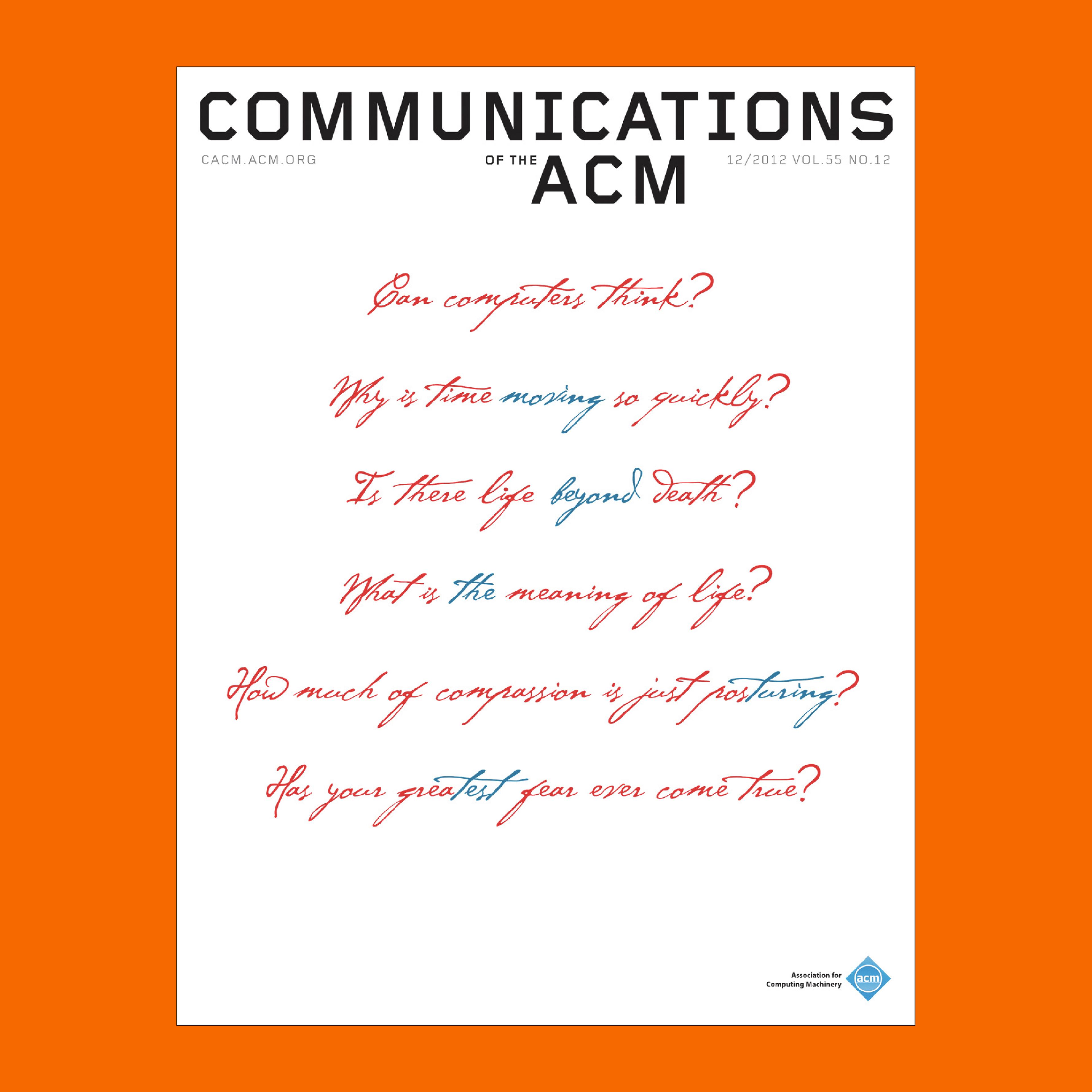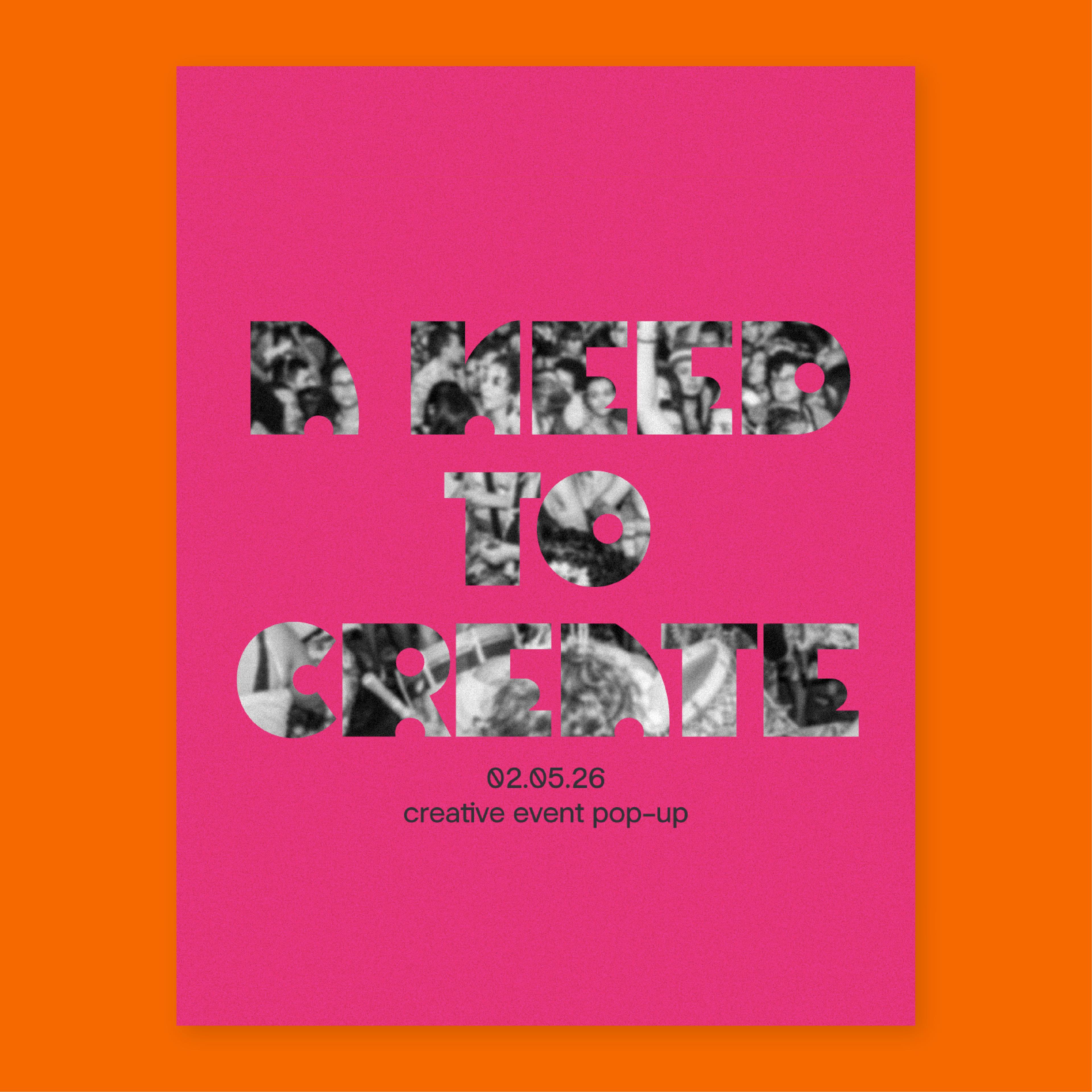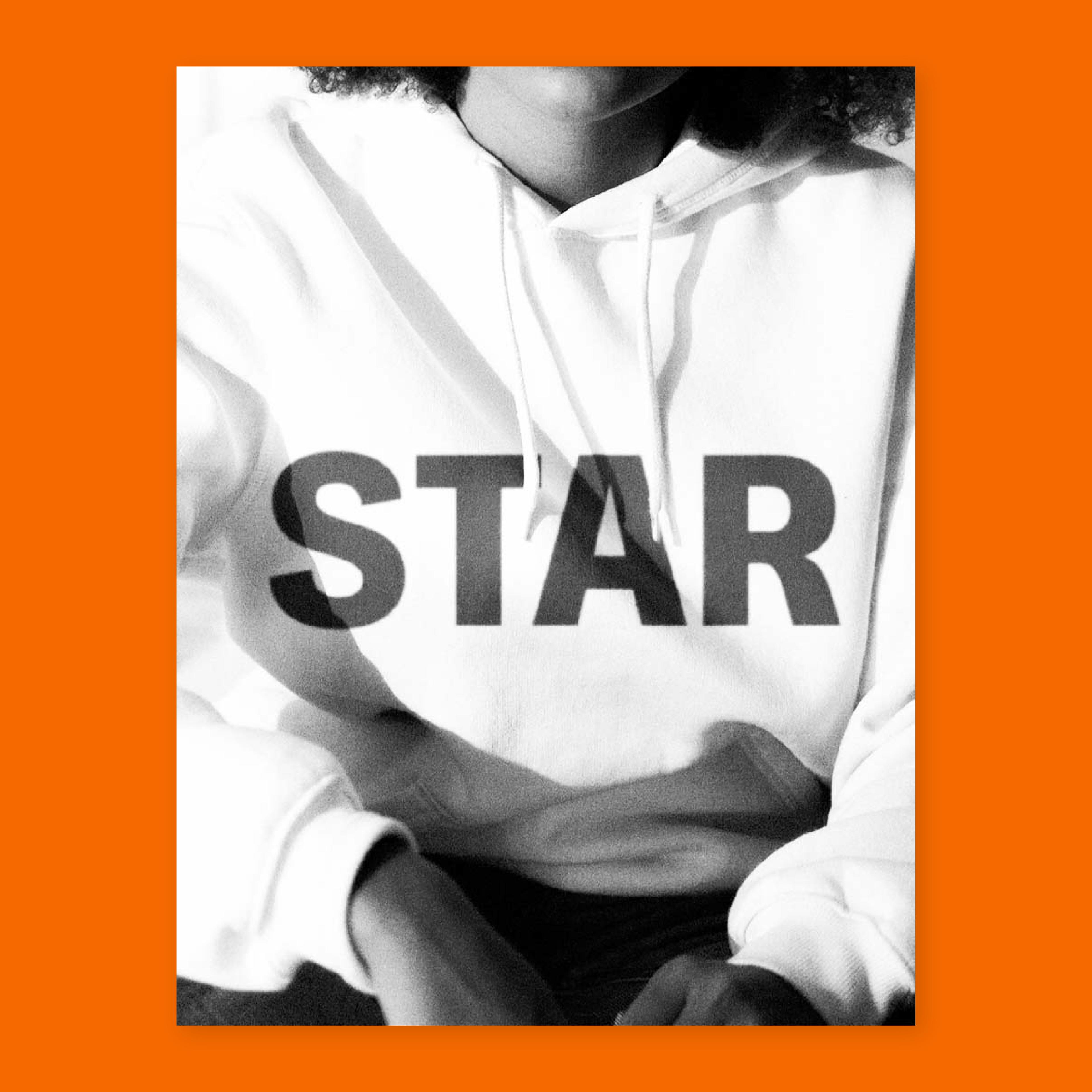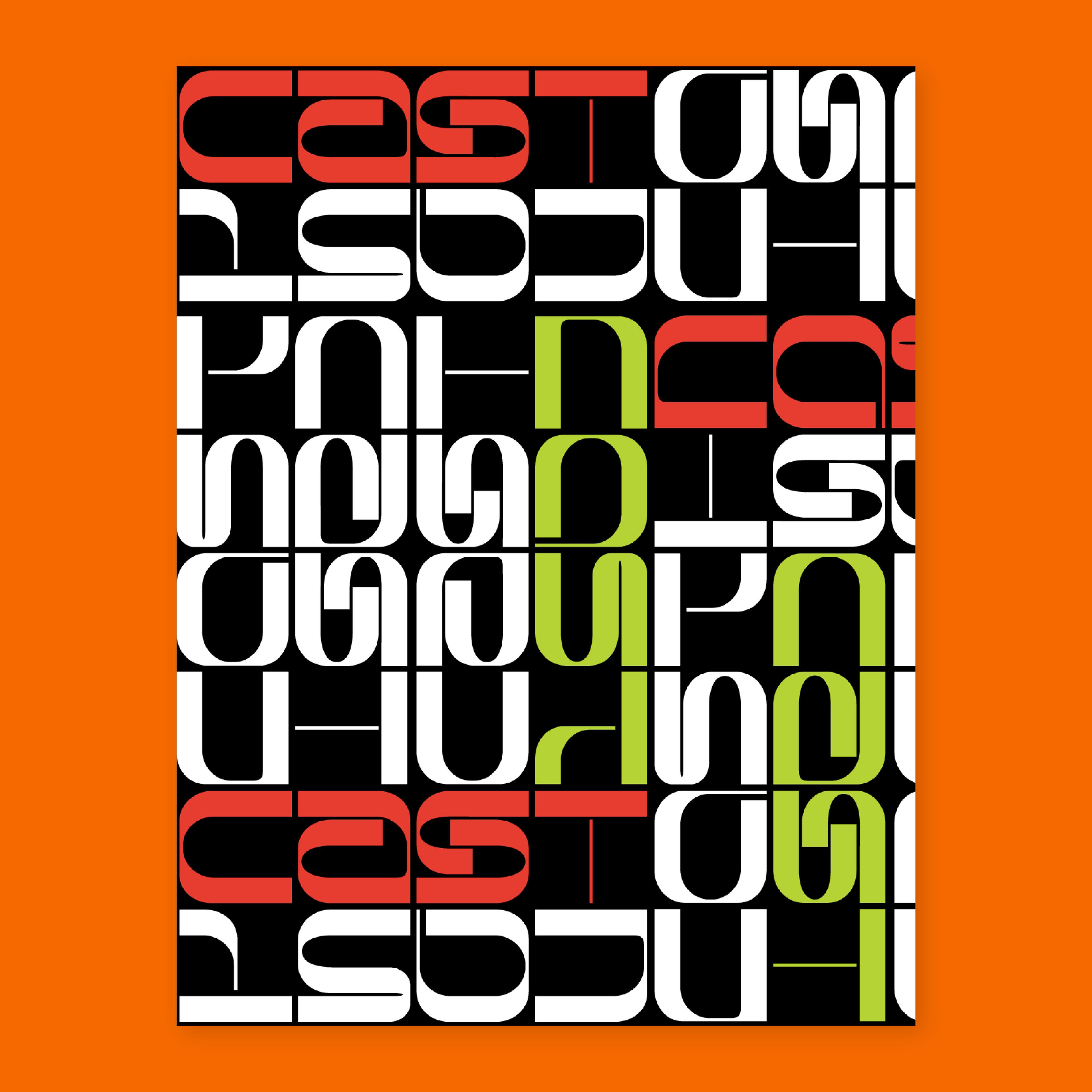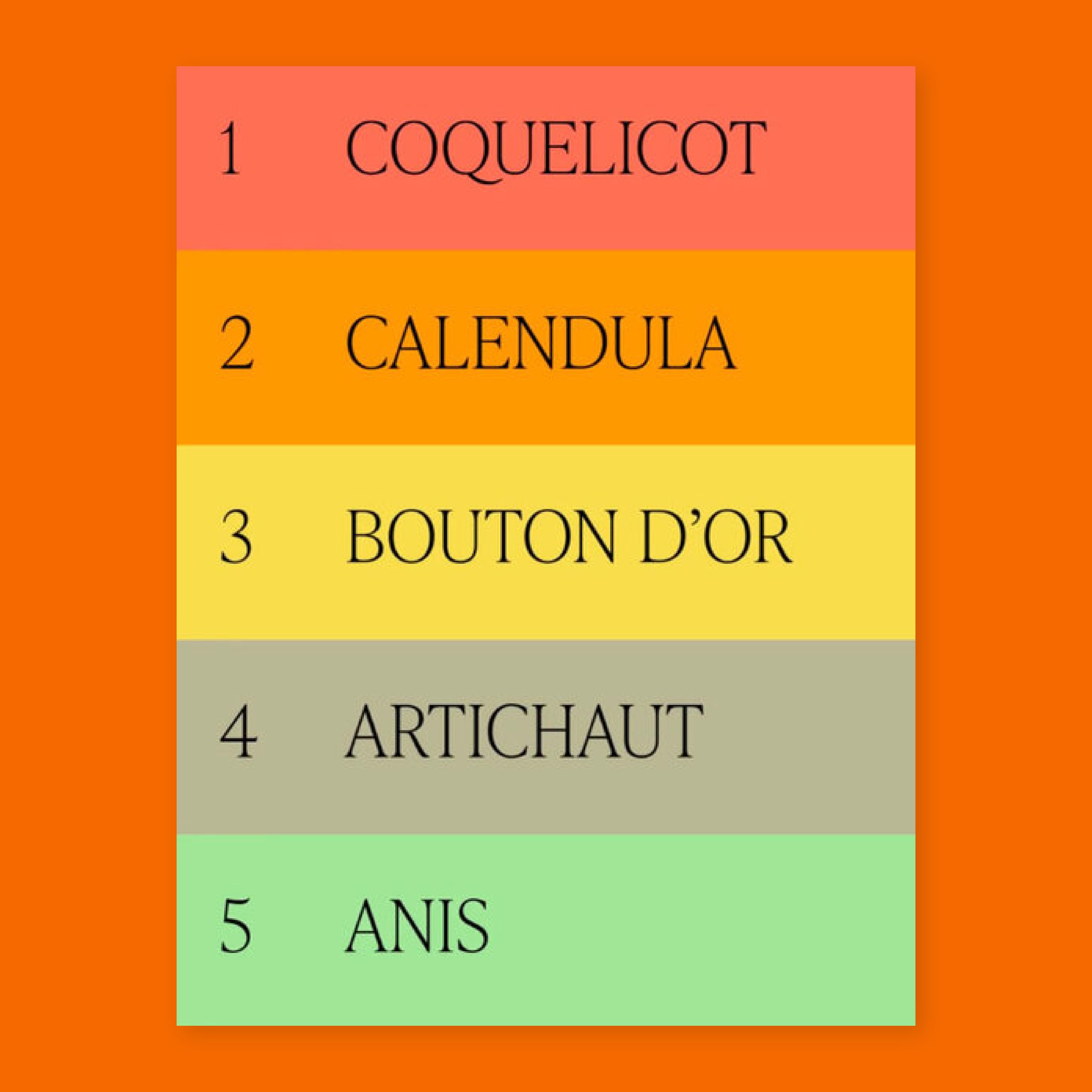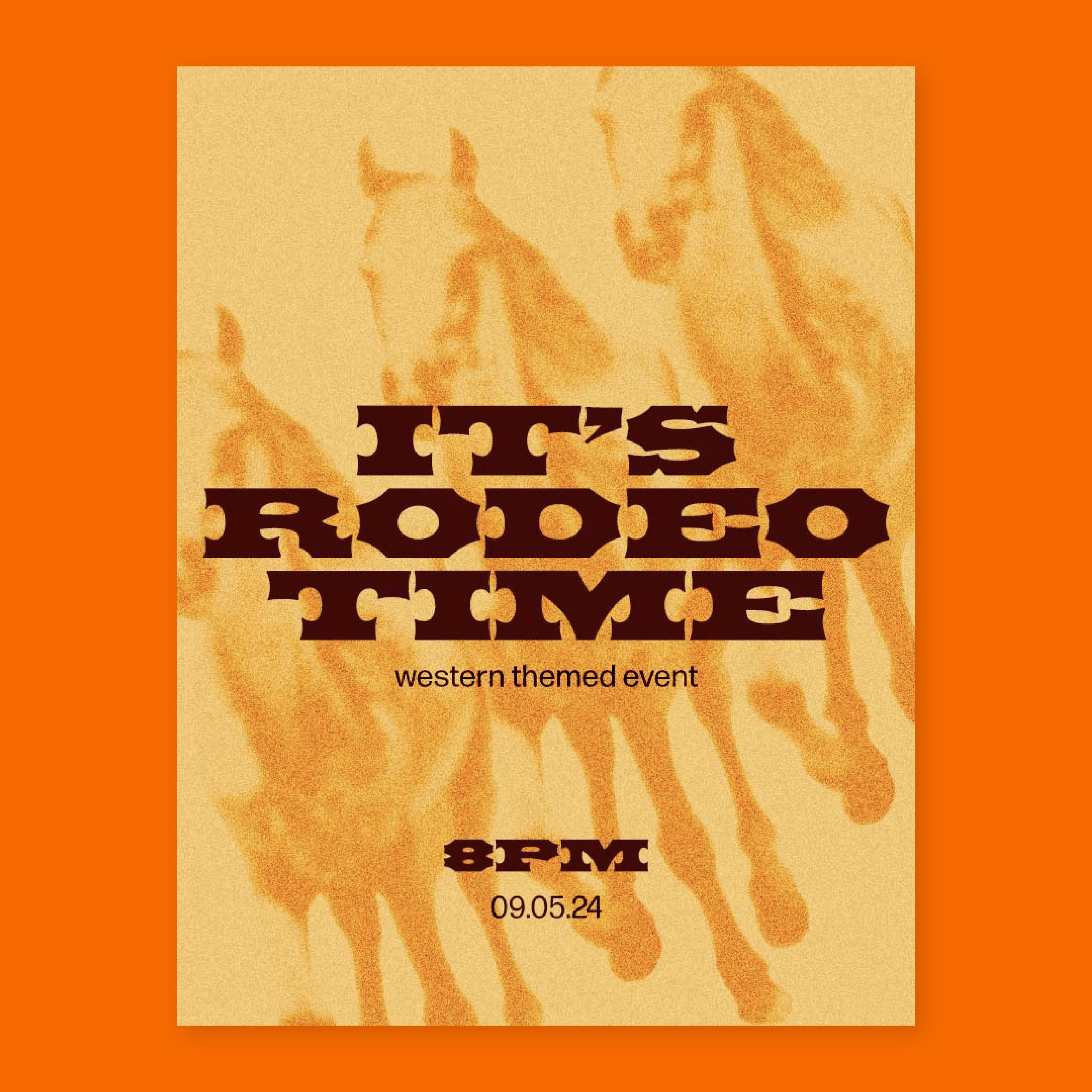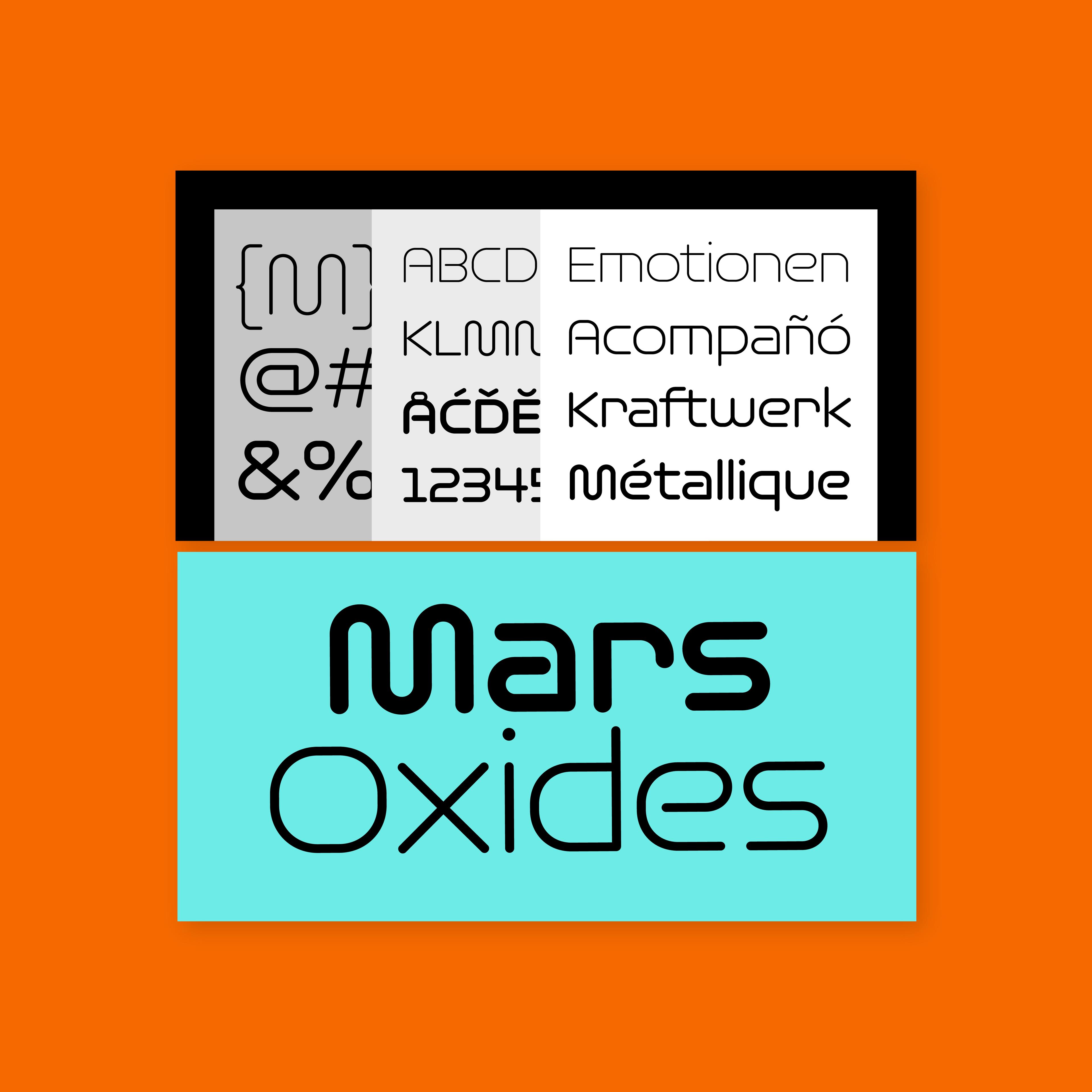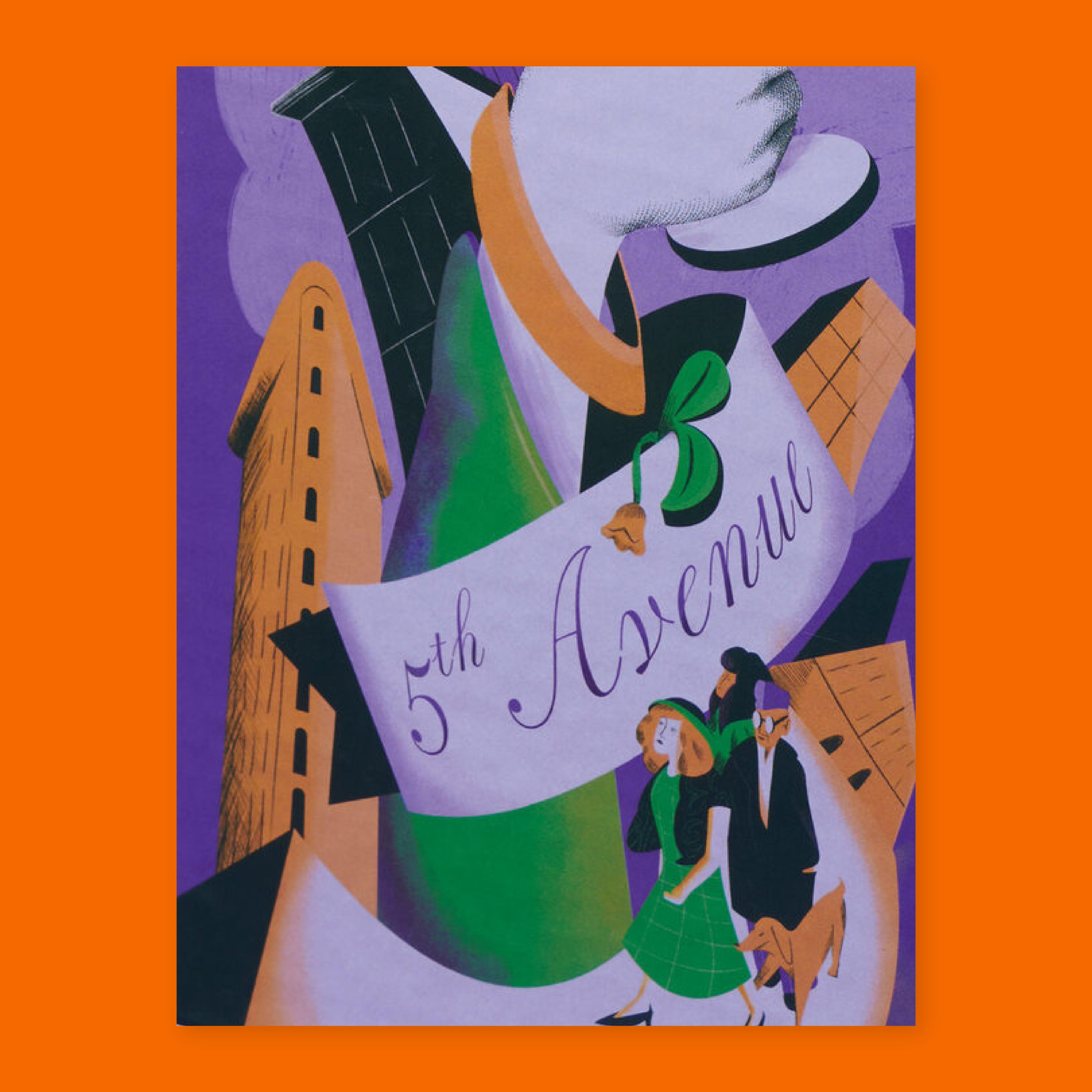
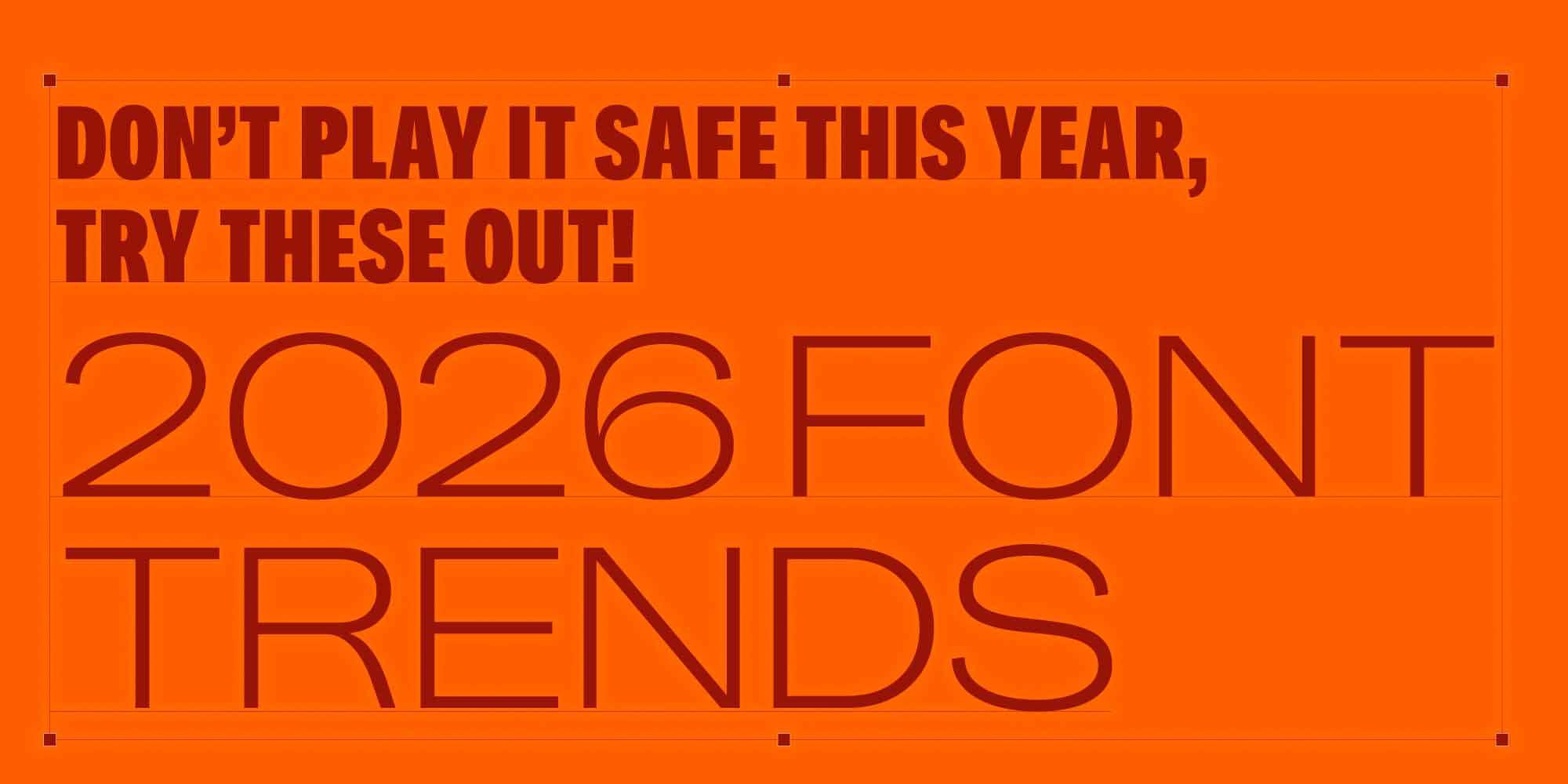
In 2026, we've noticed a resurgence of the 2016 aesthetic, featuring versatile sans fonts and bold, simple lettering. Here are some of our picks.
Script fonts got a major glow-up. Traditionally known for their elegance (and still very much that), they’ve taken on a whole new life in pop artist posters and alternative flyers, often styled in experimental, neon lettering.
These fonts are chunky, bold, a little quirky, and perfect for that project you've been working on. Since they're already loud, many designers have been leaning on them as “type as image.”
Minimalism? We’re so over it. 2026 is all about more is more! These fonts aren’t afraid to show exactly who they are; their unexpected shapes and elements make them super fun to play with.
Drama, but make it classy and timeless. These serifs are having a major moment; they’re versatile, striking, and elegant. They’re the kind of fonts you’ll never get tired of.